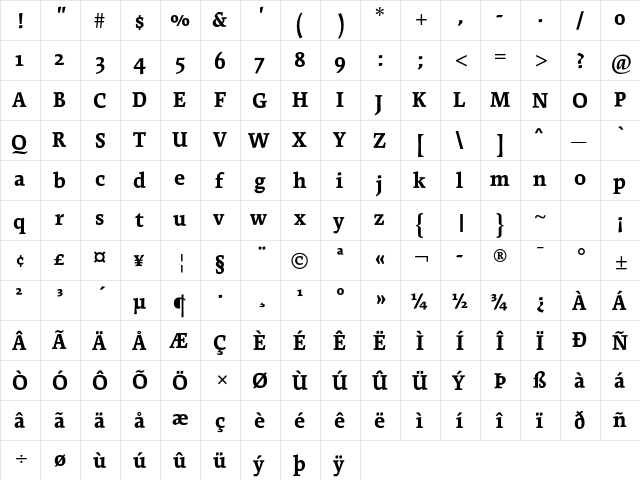
Cartier Book Std Bold
Design Context for Cartier Book Std Typeface
Cartier Book Std offers clean, dependable letterforms without strong stylistic allegiance, making it a practical choice for designers who need flexibility. Its bold stroke weight gives it real presence on the page.